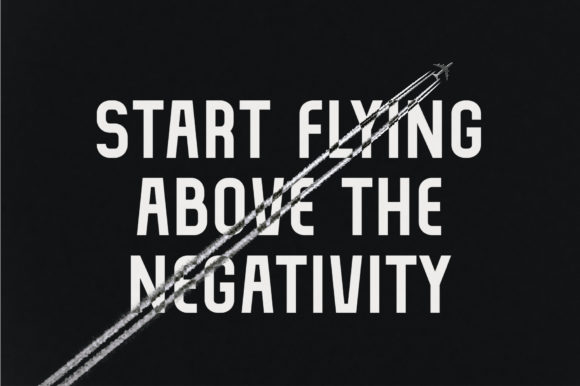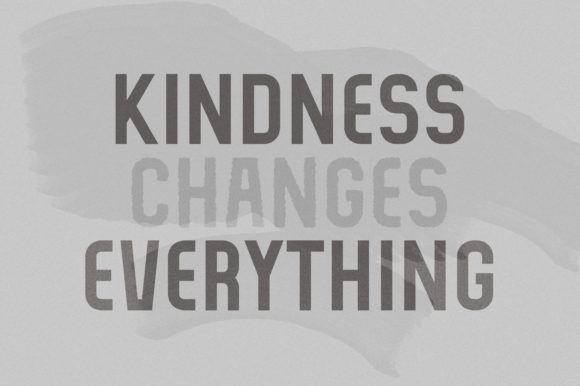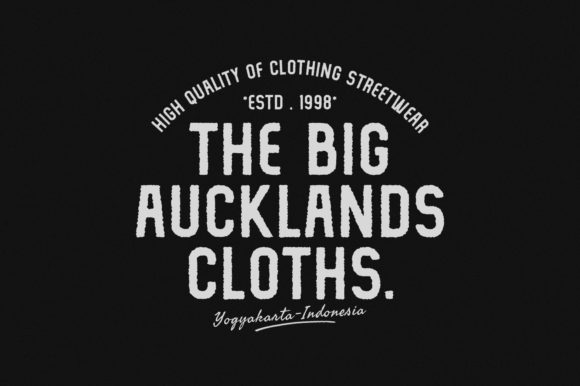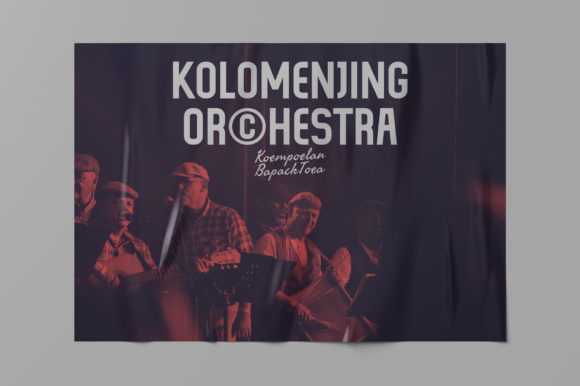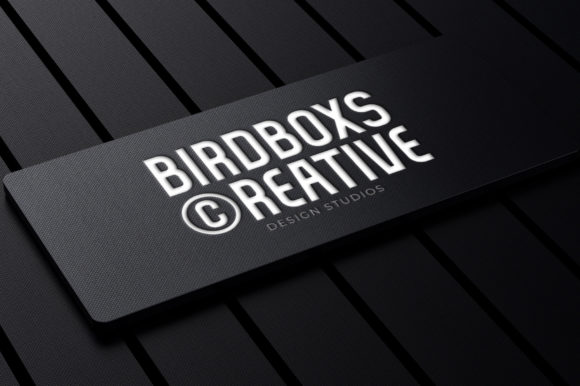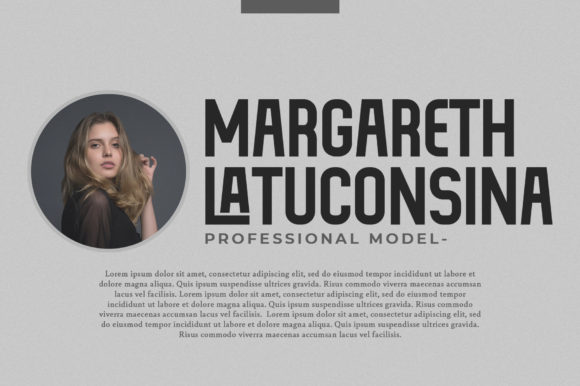
Introduction to Partey Font
Have you ever been working on a creative project and you just can’t seem to find the right font to match your vision? You scroll through your design resource library, searching for that one font that will elevate your design to the next level. That’s exactly what happened to me when I stumbled upon the Partey Font.
As soon as I laid eyes on the Partey Font, I knew it was something special. Its bold and thick letters immediately caught my attention, and I couldn’t wait to see how it would look in action. With its high-quality design and transparent background, the Partey Font is the perfect addition to any designer’s library. Whether you’re working on a personal project or a client’s design, this font has the potential to take your creations to new heights.
What sets the Partey Font apart from other fonts is its versatility and ability to make any design look cool and stylish. Whether you’re designing a logo, a brochure, or a social media graphic, the Partey Font is sure to be an asset to your creative projects. And the best part? It’s available for a free download, making it an accessible resource for designers of all levels.
Key Features of Partey Font
- High-quality design resource ideal for creative projects, including logos, branding, and advertisements.
- Transparent background, allowing designers to easily layer the font over images or other design elements.
- Partey Font comes in a single weight, making it suitable for a wide range of applications, from titles to body text.
- Designed with a modern aesthetic, featuring clean lines and a bold, eye-catching appearance.
Honest Review: Partey Font
I recently stumbled upon the Partey Font while searching for high quality design resources for a creative project. I was drawn to its unique, bold style, which I thought would be perfect for a fun and playful design.
What works well: ✨ The Partey Font is a high quality font that is available for free download, making it a great option for designers on a budget. I was also impressed by its transparent background, which made it easy to use in a variety of design scenarios. The font is also very versatile, making it suitable for a range of creative projects, from logos to social media graphics.
Limitations: ⚠️ While I loved the Partey Font, I did find that it was a bit too bold for some of my design needs. It’s definitely a font that should be used in moderation, and I found that it worked best in titles and headings rather than body text.
Overall, I was impressed by the Partey Font and would definitely recommend it to designers looking for a unique and high quality font. Just be sure to use it thoughtfully and in the right context.
- High quality font available for free download
- Versatile and suitable for a range of creative projects
- May be too bold for some design needs
The Partey Font is a high-quality, free download that can be used in various creative projects. It features a transparent background, making it ideal for overlaying on images or using as a standalone element.
The Partey Font is ideal for use in social media graphics, flyers, posters, and other creative projects that require a unique and eye-catching font.
To get the most out of the Partey Font, experiment with different font sizes, colors, and styles to create a unique look that suits your design needs.